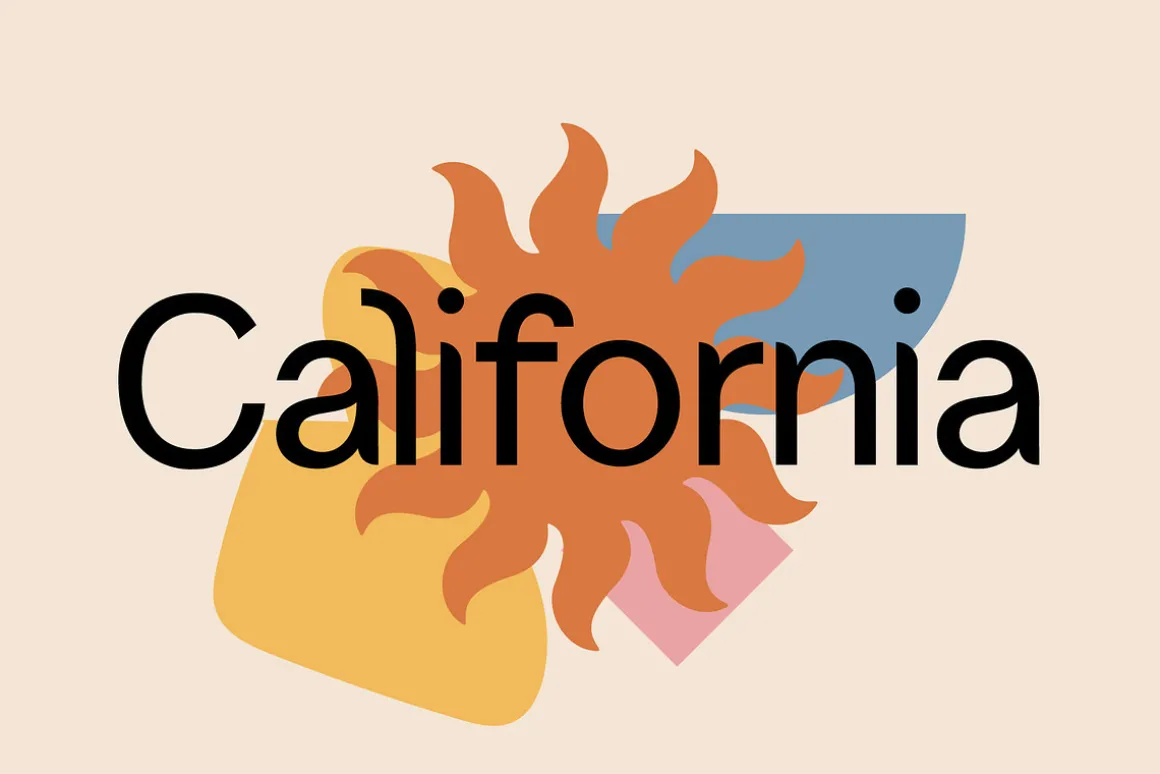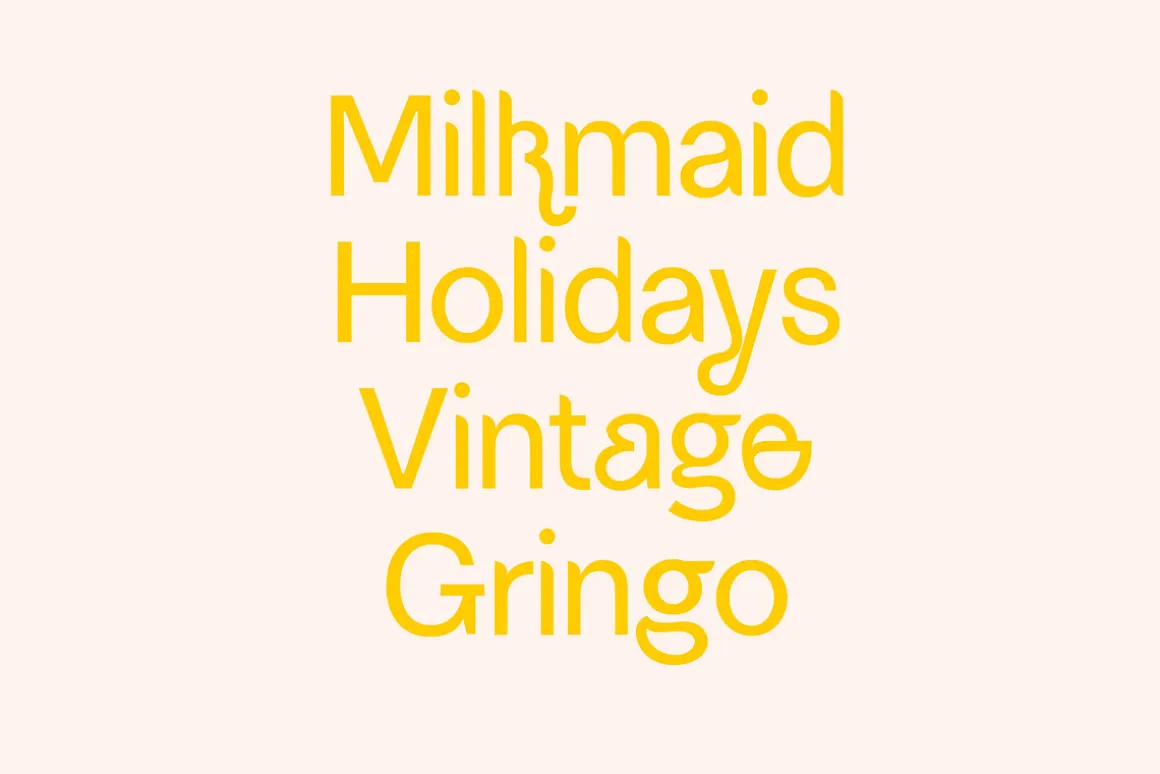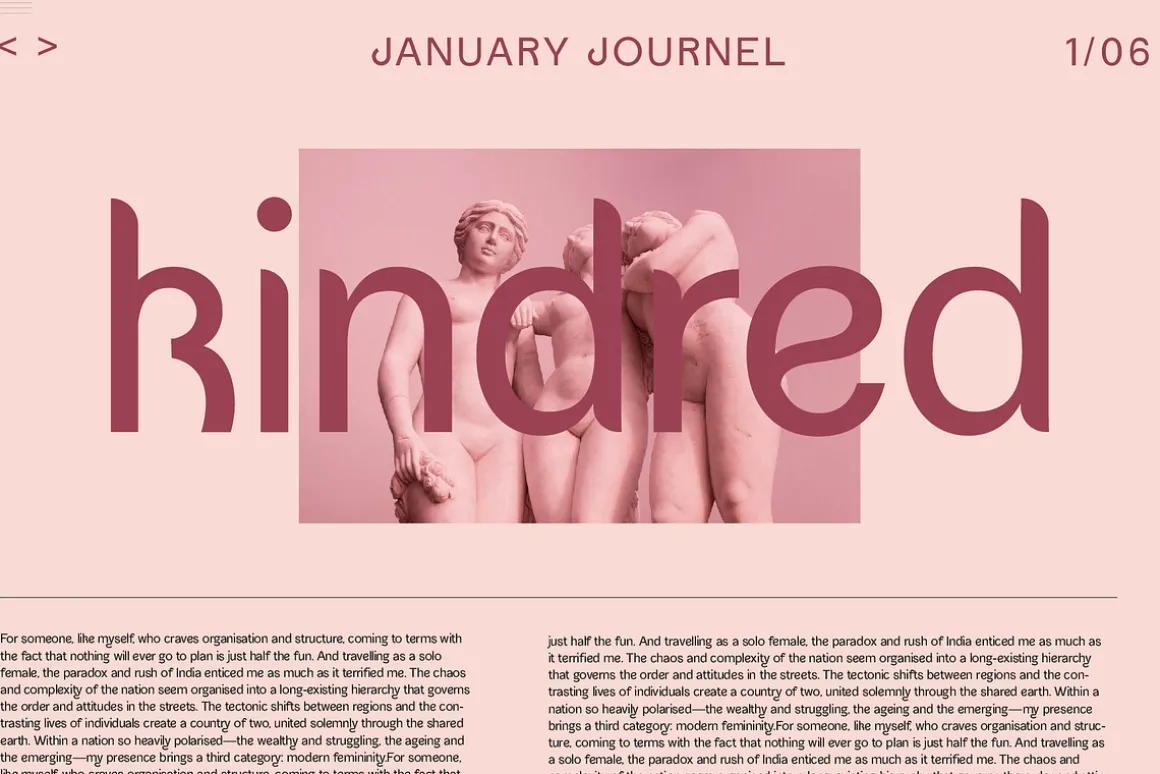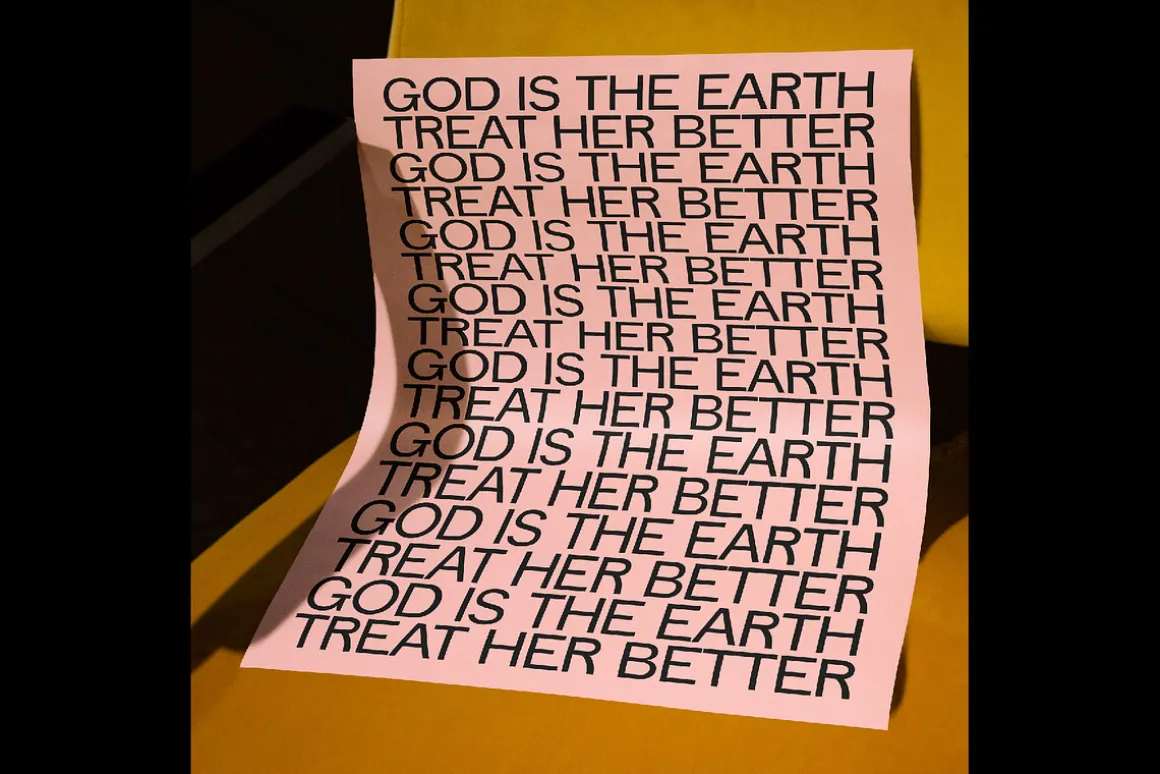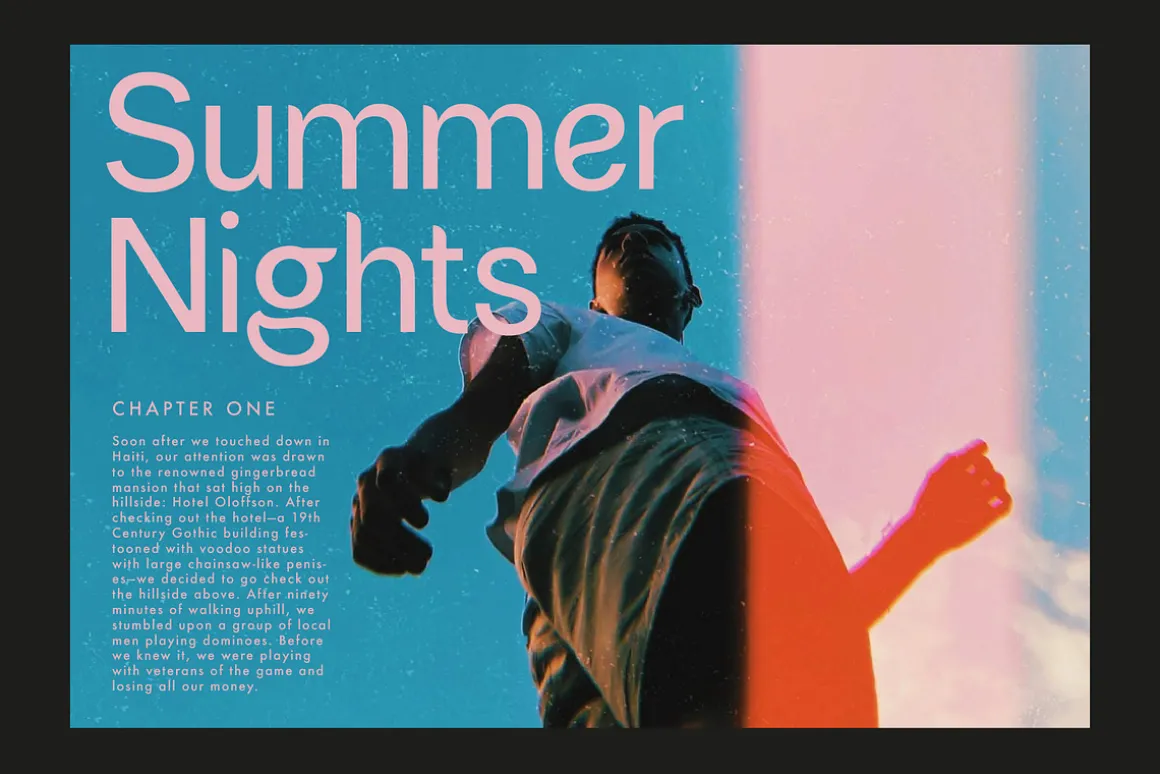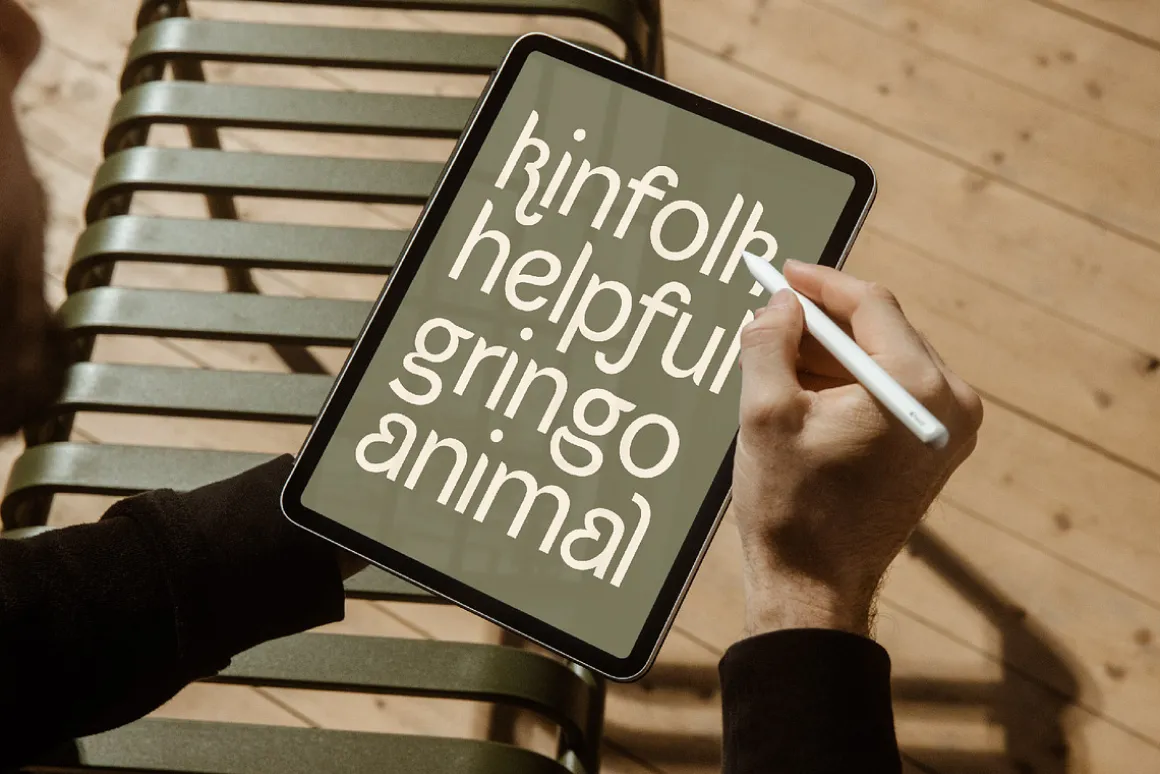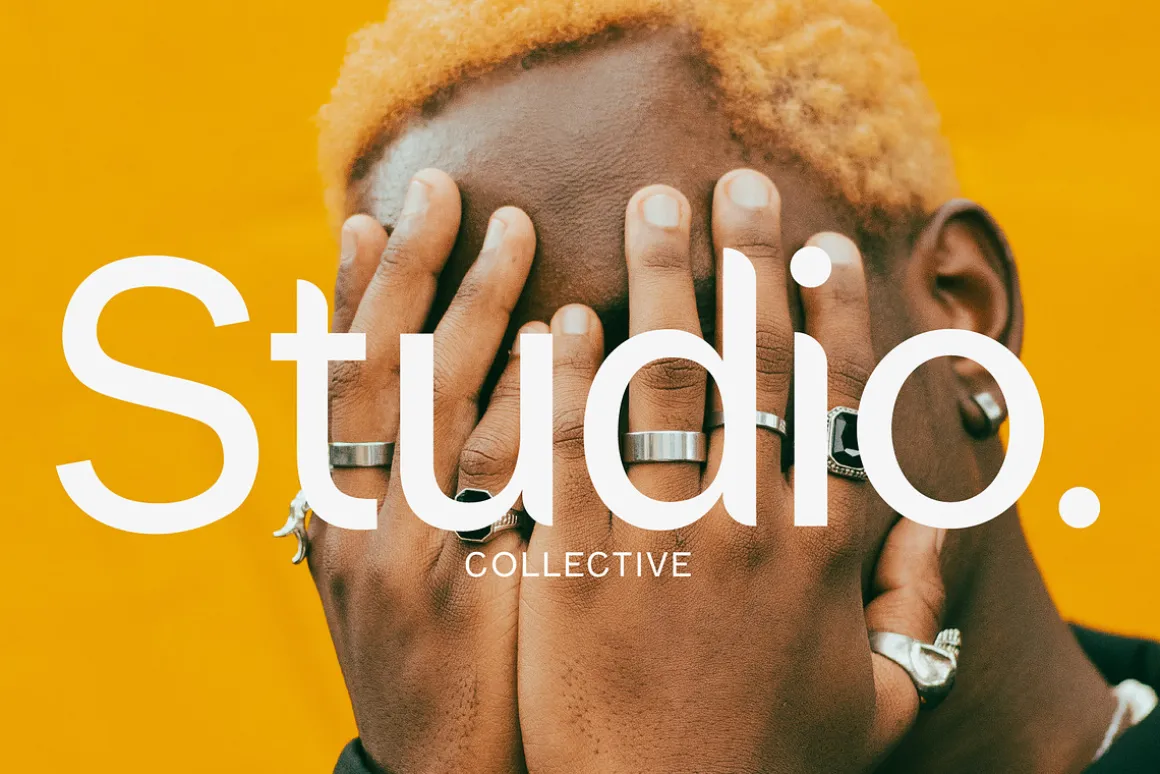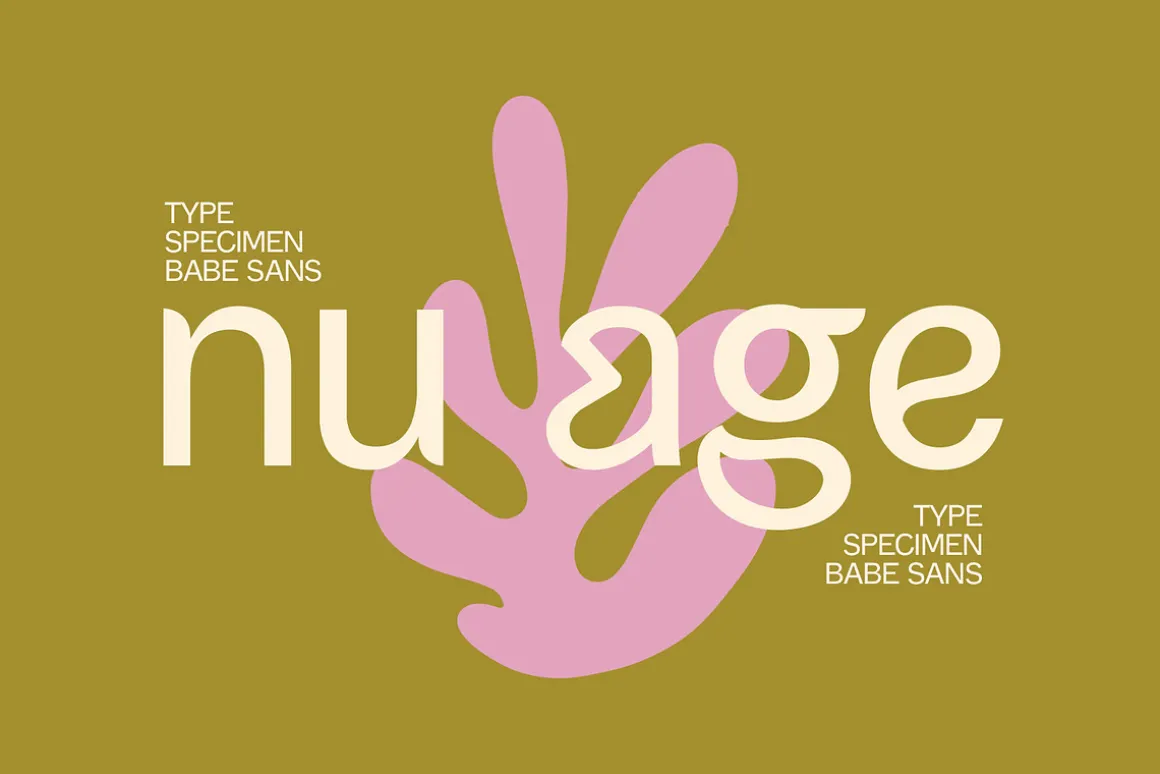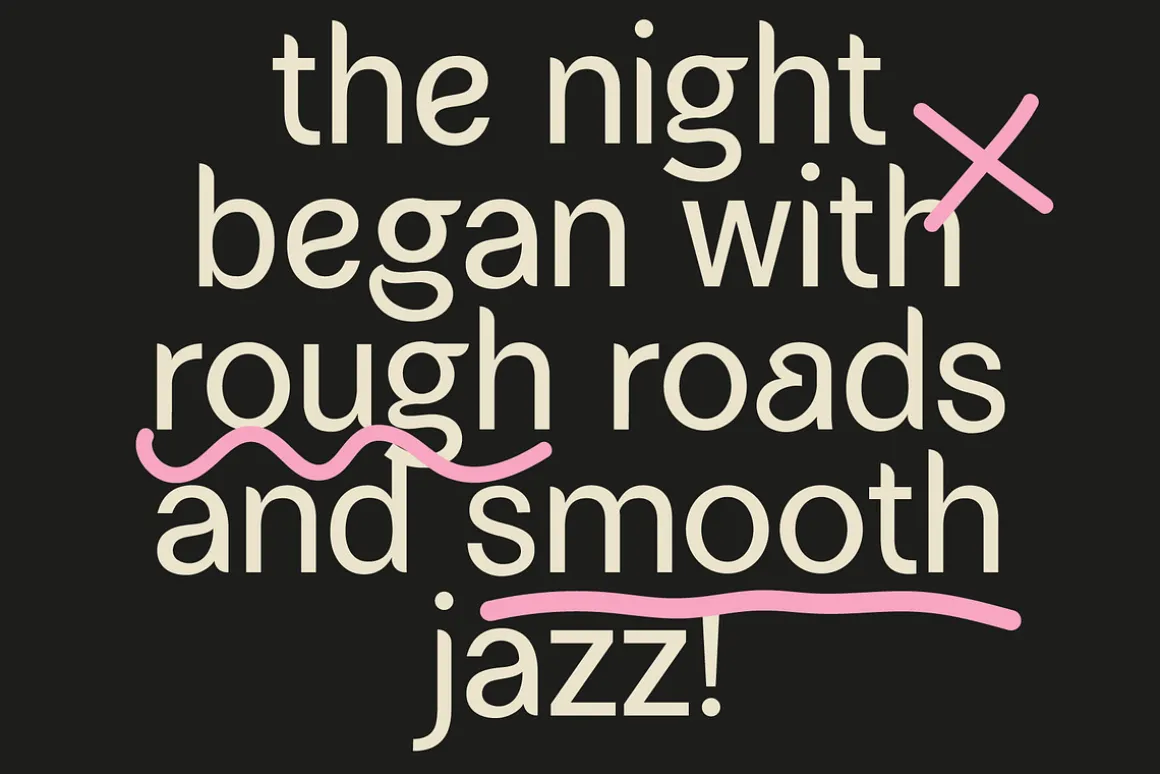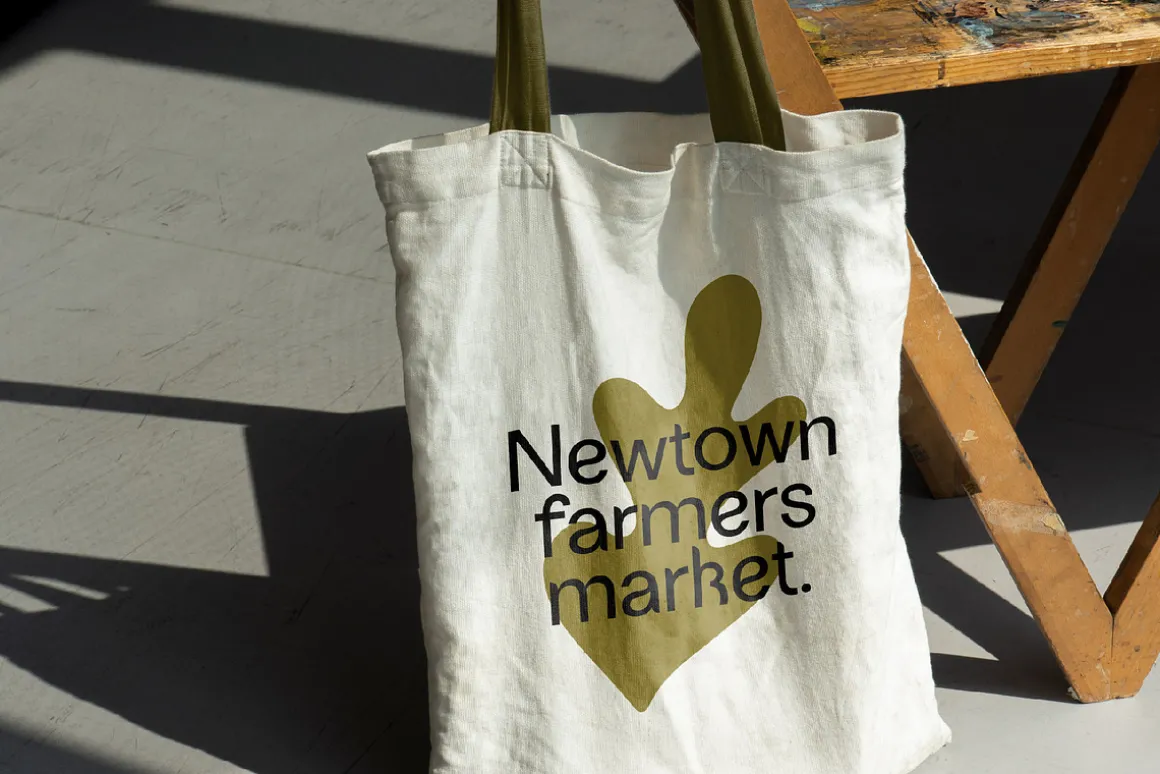
She’s cute, she’s bold, she has curves in all the right places. It’s Babe Sans.She’s clean, legible, modern like a classic san but these glyphs have style! Groovy curves and funky alternates make for a unique and memorable font.
- uppercase, alternates, numbers, punctuation
- Multilingual support ( including polish )